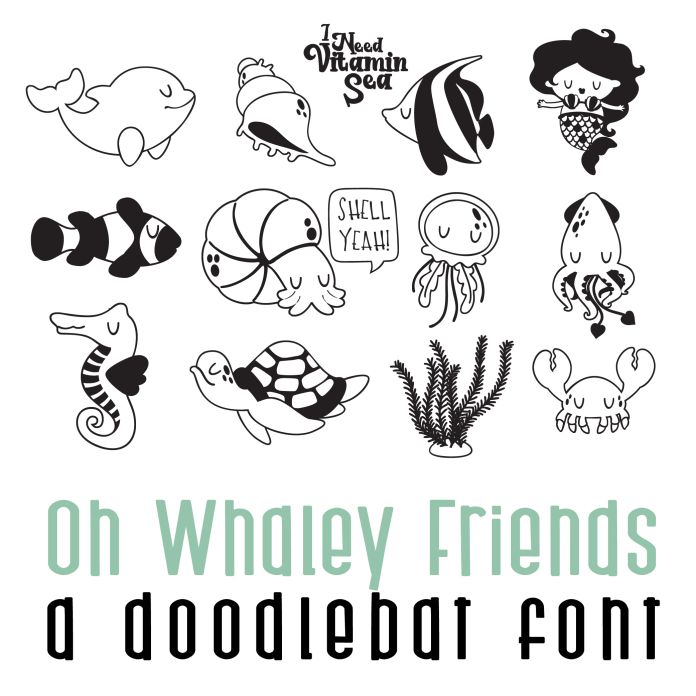
Oh Whaley Friends Doodlebat Font
This fun doodlebat font features 26 sea life and puns. Perfect for cards, crafts, gifts, decor, classrooms, scrapbooking, planner stickers and more!